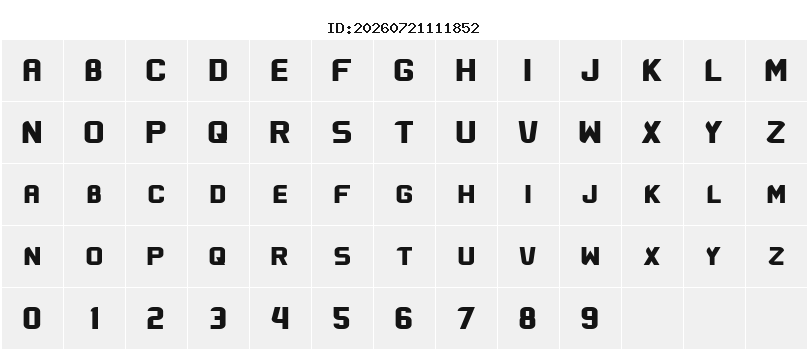
Flatwheat Upright Preview
• Font Name: Flatwheat Upright
About Flatwheat Upright.ttf
Flatwheat Upright.ttf is a modern, elegant sans-serif font designed for ultimate readability and visual harmony. Perfect for branding, headlines, web design, and print materials.